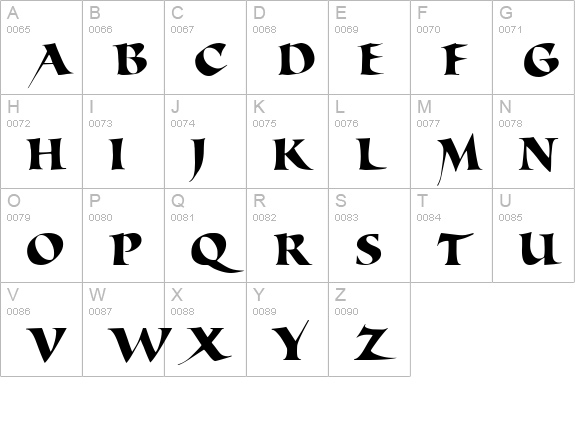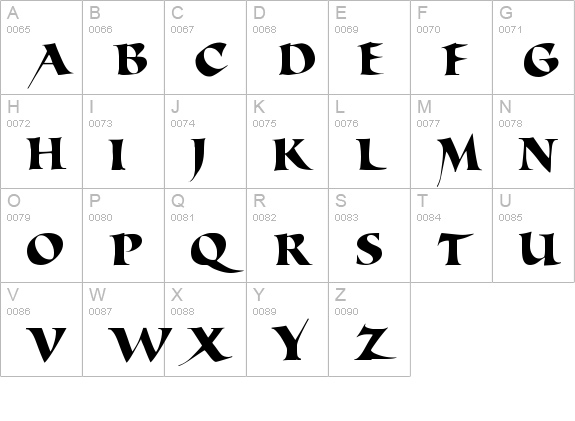
Allencon Demo font is a stunning display typeface that exudes elegance and sophistication. With its unique and intricate design, this font is perfect for adding a touch of class to your projects. The elaborate curves and sharp lines of Allencon Demo font make it stand out and grab attention. Whether you're designing a logo, invitation, or poster, this font will surely make a statement. The best part is that Allencon Demo font is completely free to use. You can download it for free at FontsMarket.com and start using it in your designs right away. Don't miss out on the opportunity to add this beautiful font to your collection. Download Allencon Demo font today and take your designs to the next level!